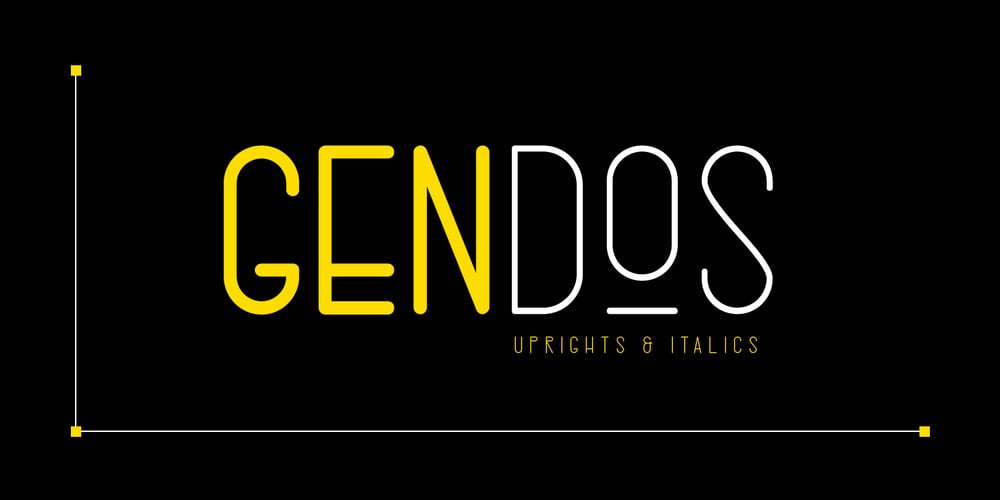
Gendos
Gendos font
Gendos Font Family was designed by Febrianto Yuwono and published by Febri Creative. Gendos contains 10 styles and family package options. Gendos is a sans serif condensed font family that is designed with a simple but unique shape.This font family has 10 styles consisting of 5 normal shapes and 5 italics.Gendos font can be used for logos, book or magazine cover titles, product brands, or just for writing articles.